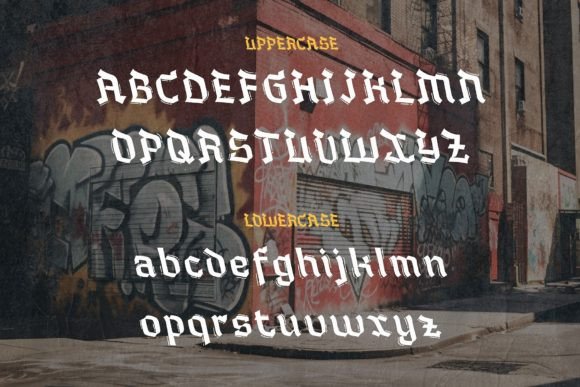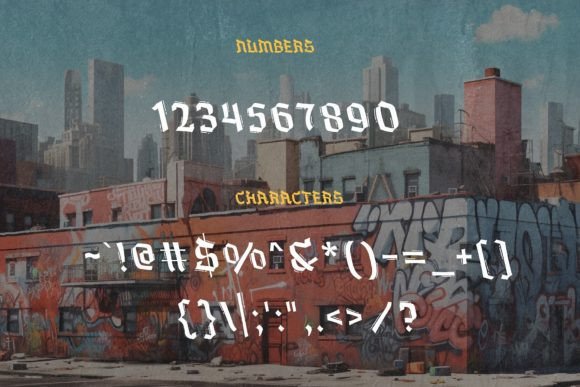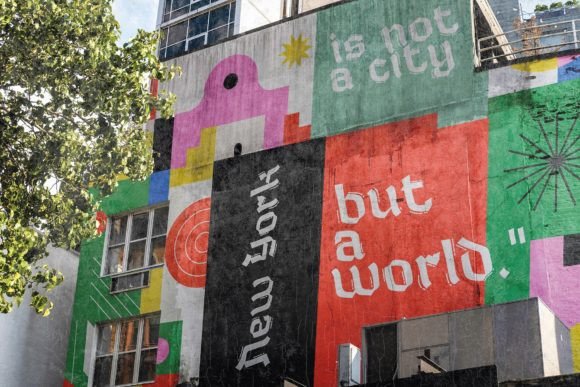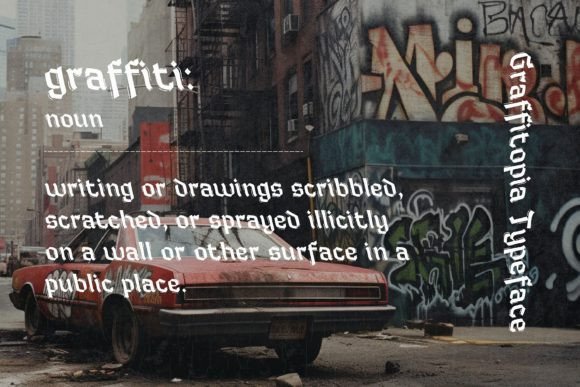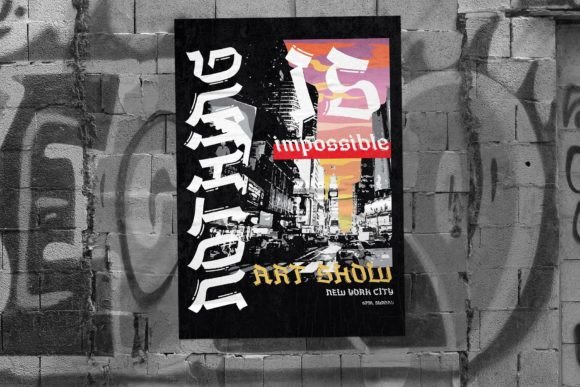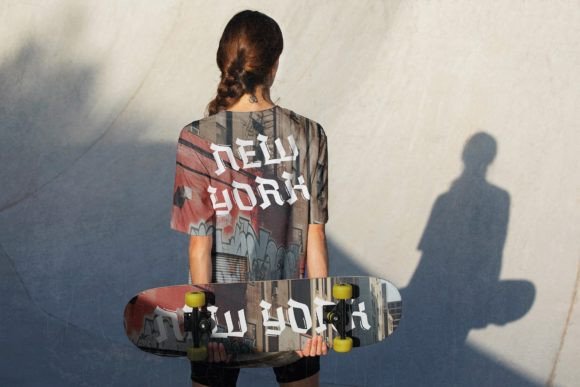
Introducing Graffitopia Font: Unleash the Raw Energy of Graffiti Tagging
Are you ready to add a dash of urban grit and rebellious flair to your designs? Look no further than Graffitopia, an electrifying font that embodies the vibrant spirit of graffiti tagging. Inspired by the dynamic street art culture, this typeface brings the edgy strokes and authentic letterforms of graffiti to your digital canvas, transforming words into artful statements that echo the creativity and defiance of street artists.
The Birth of Graffitopia: A Font Rooted in Street Art Culture
Graffitopia is more than just a font – it’s an experience. Born from the streets and inspired by the bold, colorful, and often provocative world of graffiti, this typeface captures the essence of urban art. Each letter is carefully crafted to reflect the spontaneous and daring nature of graffiti tagging, making it the perfect choice for designers and crafters who want to push the boundaries of artistic expression.
Unleashing Creative Potential: The Features of Graffitopia
So, what sets Graffitopia apart from other fonts? Here are just a few of its standout features:
- Authentic Graffiti Letterforms: Every letter in Graffitopia is designed to reflect the unique style and flair of graffiti art. From the bold, sweeping strokes to the intricate details and embellishments, each character is a masterclass in urban typography.
- Edgy and Expressive: Graffitopia is all about attitude. This font is not for the faint of heart – it’s for those who want to make a statement, challenge the status quo, and leave their mark on the world.
- Versatile and Adaptable: Whether you’re designing a logo, poster, or social media graphic, Graffitopia is the perfect choice. Its bold, eye-catching letterforms work beautifully in a variety of contexts, from digital designs to print materials.
Bringing the Urban Landscape to Your Designs
Graffitopia is more than just a font – it’s a way to bring the energy and excitement of the urban landscape to your designs. With its authentic graffiti letterforms and rebellious attitude, this typeface is perfect for:
- Edgy Logos: Create a logo that stands out from the crowd with Graffitopia’s bold, daring letterforms.
- Eye-Catching Posters: Make a statement with a poster that showcases Graffitopia’s vibrant, dynamic style.
- Contemporary Designs: Add a touch of urban grit to your digital designs, from social media graphics to website headers.
Why Choose Graffitopia?
With so many fonts to choose from, why should you choose Graffitopia? Here are just a few reasons:
- Unique and Authentic: Graffitopia is a truly one-of-a-kind font that captures the essence of graffiti art.
- High-Quality Design: Every letter in Graffitopia is carefully crafted to ensure a high level of quality and attention to detail.